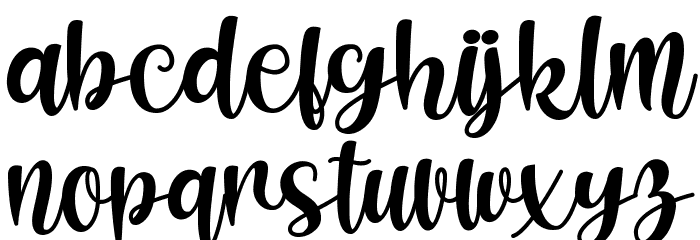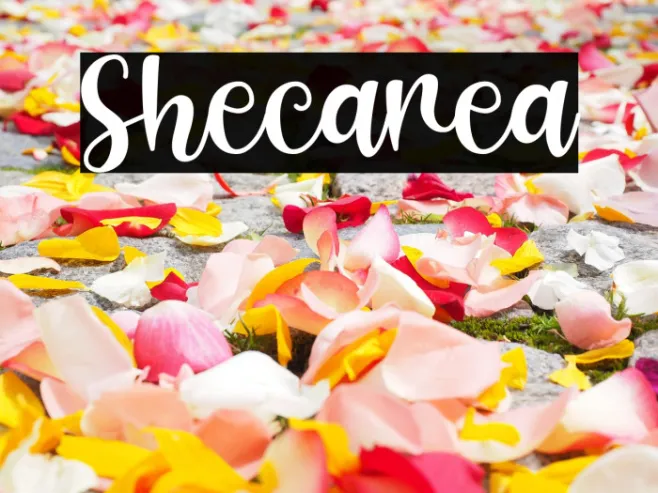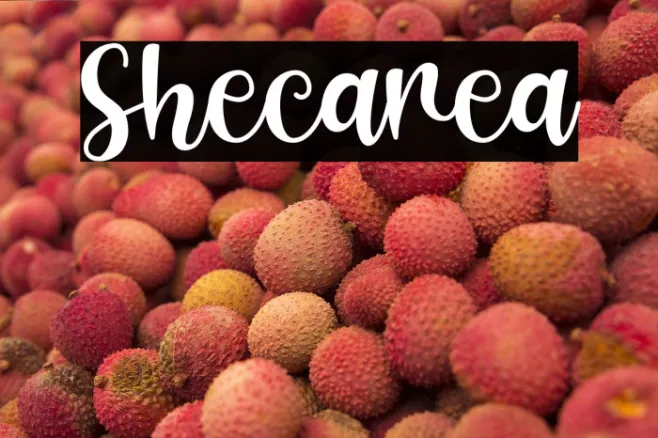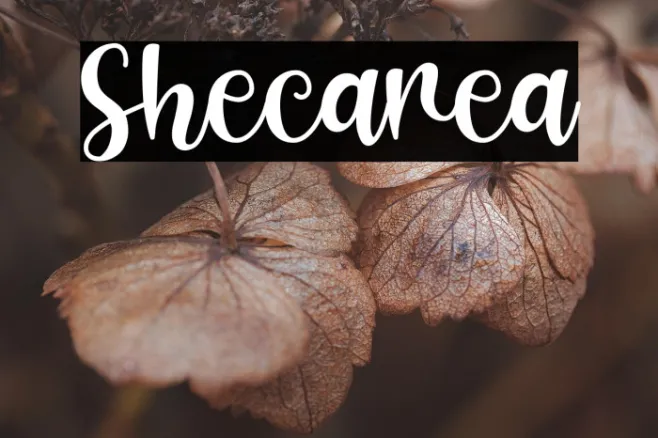
Shecarea Font
This font features a bold and flowing script style, characterized by its smooth, connected letters and elegant curves. The uppercase letters are slightly larger and more pronounced, while the lowercase letters maintain a consistent flow, enhancing readability. The font exudes a sense of modern elegance and creativity, making it suitable for a variety of design projects. Its playful yet sophisticated appearance is complemented by a medium contrast in stroke thickness, adding to its visual appeal. The character spacing is normal, allowing for clear legibility without compromising the artistic flair.
A bold, flowing script font with elegant curves and medium contrast.
- Proposed Projects: Ideal for branding, invitations, greeting cards, and logo design.